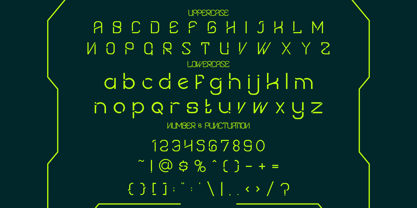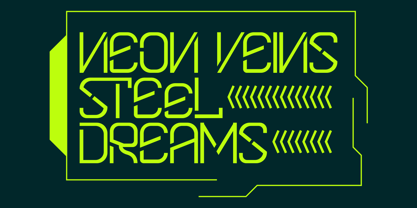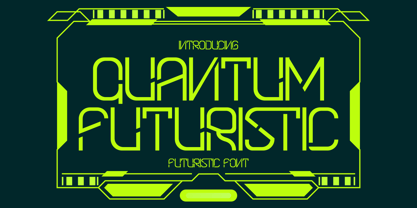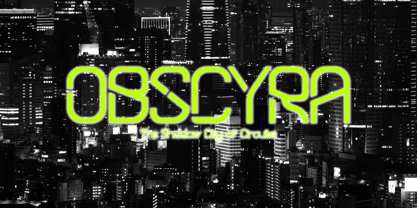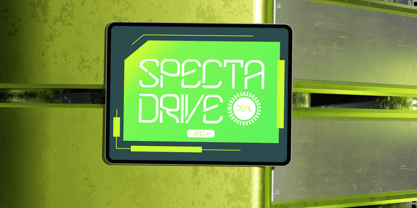
Quantum Futuristic
by Shanaf
The Quantum Futuristic Font Family was designed by Yesie Erma Yunita and published by Shanaf. Quantum Futuristic contains 1 styles.
Step into the world of tomorrow with Quantum Futuristic, a sleek and intelligent typeface engineered for sci-fi branding, cyberpunk aesthetics, and tech-driven storytelling. The font features dynamic geometric structures, sharply cut angles, and minimalist strokes that evoke a digital-age sensibility. With high readability in uppercase and lowercase, Quantum Futuristic excels in both display usage and functional design. Each glyph channels a futuristic, circuit-inspired flow—perfect for tech startups, gaming interfaces, or digital event branding.
From neon cityscapes to spacecraft dashboards, Quantum Futuristic adapts seamlessly across media. Its unique letterforms, such as the sliced “R” and angular “M,” offer a distinct, modern character ideal for posters, UI displays, movie titles, and packaging. This font speaks the language of innovation—pulsing with energy, clarity, and purpose. Whether you're building a futuristic logo, designing a high-tech interface, or launching a sci-fi book cover, Quantum Futuristic positions your visuals light-years ahead of the competition
Designers: Yesie Erma Yunita
Publisher: Shanaf
Foundry: Shanaf
Design Owner: Shanaf